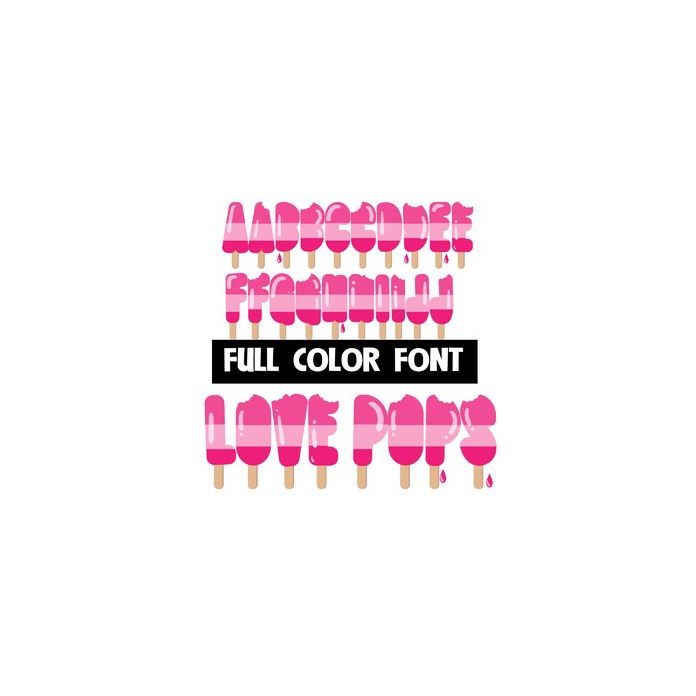
This full-color font features striped, pink popsicles. The lowercase has a bite out of each one. This font works best for titles, displays, posters and more. Please note color fonts will show as black in non compatible programs. This font type is compatible with Silhouette Studio.